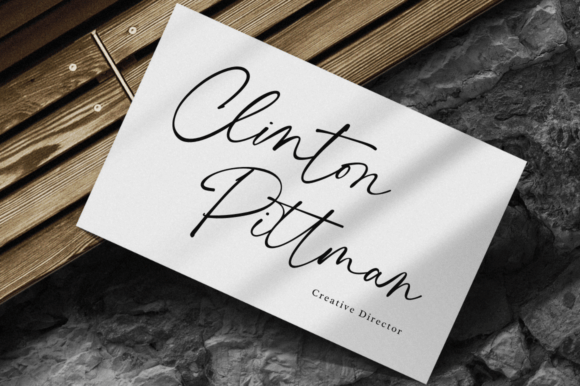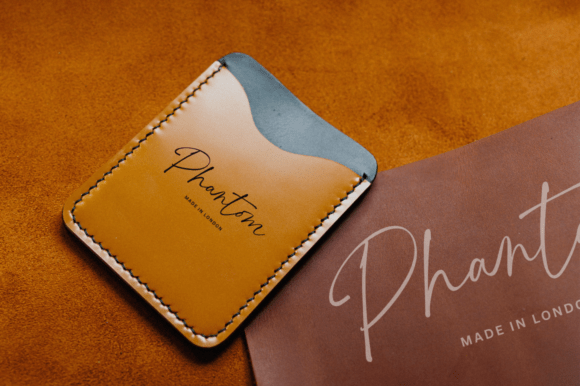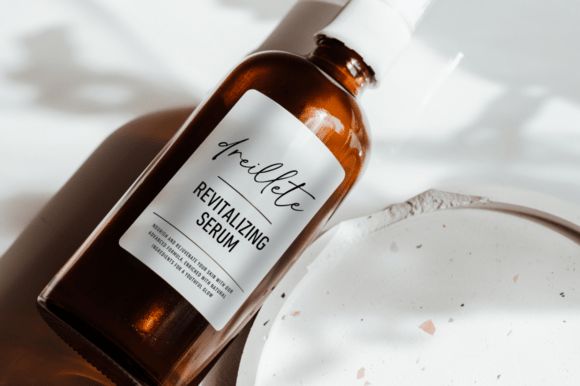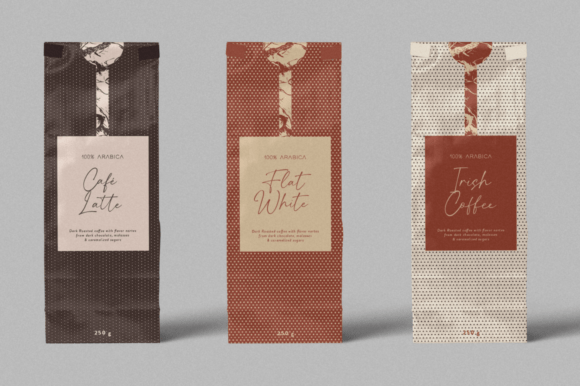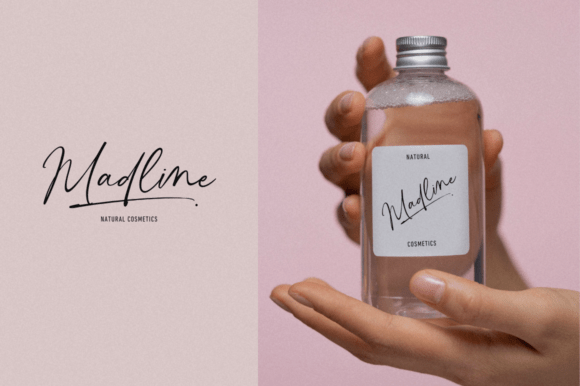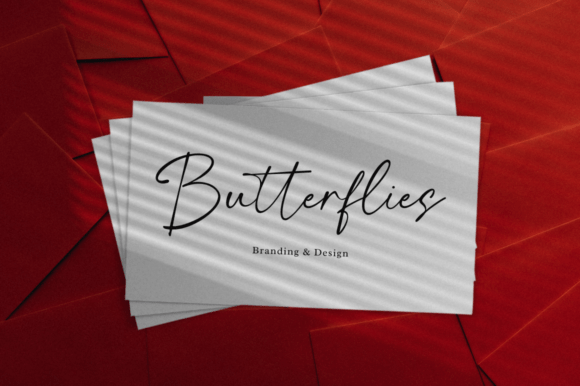
Introducing Hamiston Font: Elevate Your Design with Elegance and Sophistication
In the world of typography, fonts play a crucial role in conveying the tone and personality of a brand, product, or service. For designers and crafters seeking to add a touch of luxury and refinement to their projects, the Hamiston Font, specifically “Hamiston Signature,” is an exceptional choice. This sophisticated script signature font is designed to exude elegance and class, making it perfect for a variety of high-end applications.
The Essence of Hamiston Signature
“Hamiston Signature” is a beautifully crafted script font that embodies the essence of handwritten sophistication. Its smooth, flowing lines and meticulously designed letterforms give it a natural, authentic feel that is both unique and stylish. This font is not just a means of communication; it’s an expression of personality and style, capable of elevating any project to new heights of elegance and refinement.
Ideal Applications for Hamiston Signature
The versatility of “Hamiston Signature” makes it suitable for a wide range of applications where making a statement of luxury and sophistication is desired. Some of the ideal uses for this exquisite font include:
- Personal Branding: For individuals looking to establish a strong, elegant personal brand, “Hamiston Signature” offers a unique opportunity to stand out with style and sophistication.
- Wedding Invitations: Adding a touch of luxury and romance to wedding invitations, this font ensures that your special day starts with a memorable and classy note.
- Luxury Logos: For high-end brands, “Hamiston Signature” provides an excellent choice for logos that need to convey elegance, quality, and exclusivity.
- High-End Packaging: Elevate your product packaging with a sophisticated look that reflects the premium quality of your offerings.
Why Choose Hamiston Signature?
There are several reasons why “Hamiston Signature” stands out as a preferred choice for designers and crafters:
- Elegance and Sophistication: The font’s design exudes a sense of luxury and refinement, perfect for projects that require a high-end feel.
- Versatility: Its smooth, flowing lines make it versatile for use in various design projects, from digital to print.
- Authentic Feel: The natural, handwritten quality of “Hamiston Signature” lends an authentic and personal touch to any project.
- Uniqueness: With its beautifully crafted letterforms, this font helps your project stand out by offering a unique and distinctive style.
Tips for Using Hamiston Signature Effectively
To maximize the impact of “Hamiston Signature” in your designs, consider the following tips:
- Pair with Complementary Fonts: Combine “Hamiston Signature” with simpler, sans-serif fonts for contrast and visual interest.
- Use for Headlines and Titles: Its elegant and sophisticated nature makes it ideal for headlines and titles, where it can make a significant impact.
- Adjust Letter Spacing: For optimal readability, adjust the letter spacing according to the size and application of the font.
“Hamiston Signature” is more than just a font; it’s a design element that can transform your projects with its elegance and sophistication. Whether you’re a designer looking to offer your clients something unique or a crafter seeking to add a touch of luxury to your creations, “Hamiston Signature” is an excellent choice. Its versatility, combined with its natural and authentic feel, makes it perfect for a wide range of applications, from personal branding and wedding invitations to luxury logos and high-end packaging. Elevate your designs with the refined charm of “Hamiston Signature” and make a lasting impression on your audience.